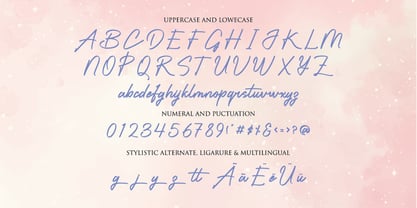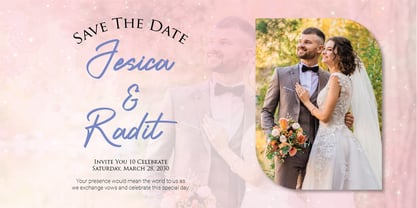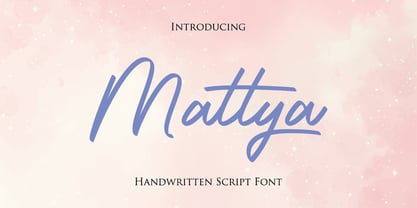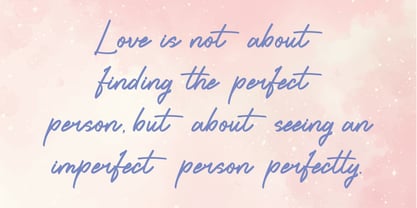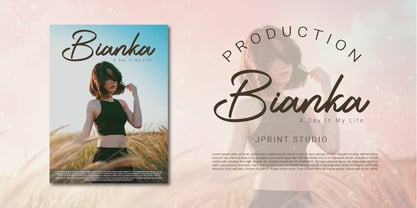
Mattya
by JprintStudio
The Mattya Font Family was designed by Gais Zaelani and published by JprintStudio. Mattya contains 1 styles.
Introducing Mattya; a casually elegant handwritten font resonating a warm, engaging charm. Its laid-back style is equally suited to crafting stunning wedding invitations, eye-catching artwork or even to add a personal touch to your social media posts and delightful greeting cards. With Mattya, every creative concept effortlessly transforms into a veritable masterpiece.
Designers: Gais Zaelani
Publisher: JprintStudio
Foundry: JprintStudio